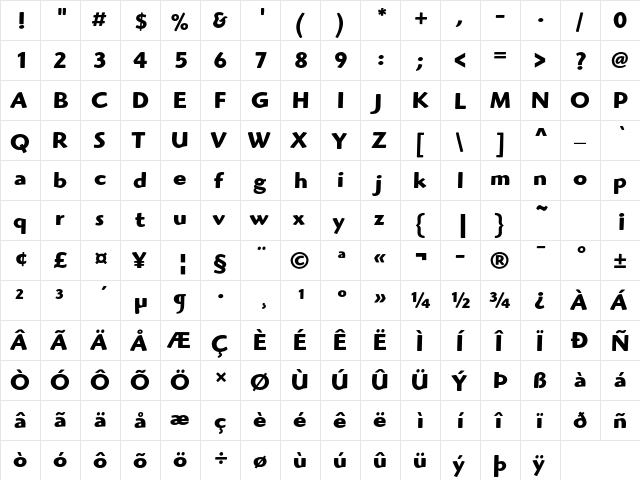
ITC Highlander Std Bold
| Designer | David Farey |
Design Context for ITC Highlander Std Typeface
ITC Highlander Std offers clean, dependable letterforms without strong stylistic allegiance, making it a practical choice for designers who need flexibility. The heavy weight commands attention and anchors typographic hierarchies.